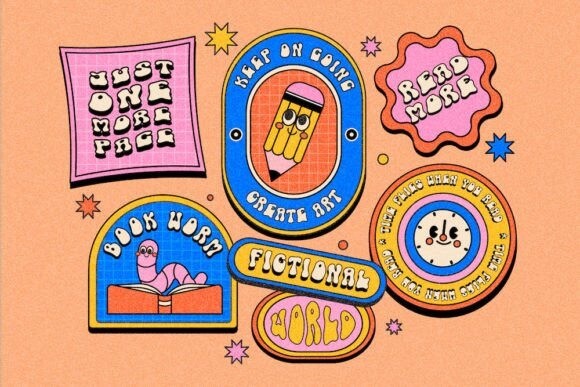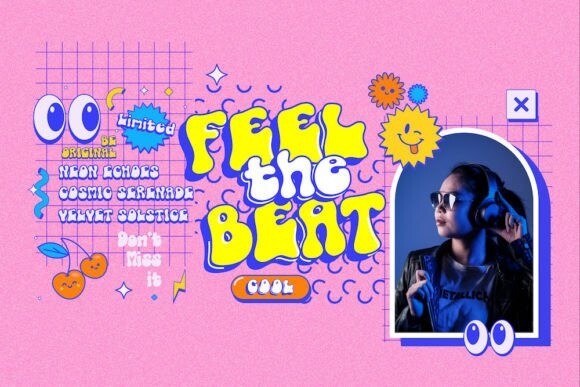
Funky Retrovy Font
Funky Retrovy Font is a groovy and energetic font that perfectly captures the essence of retro nostalgia. With its funky and whimsical letterforms, this typeface exudes a vibrant and carefree spirit reminiscent of the colorful era it celebrates. Whether used for disco-inspired graphics or retro-themed merchandise, this font effortlessly brings a dose of retro coolness to any design, inviting us to dance back in time and embrace the funky vibes of the past.